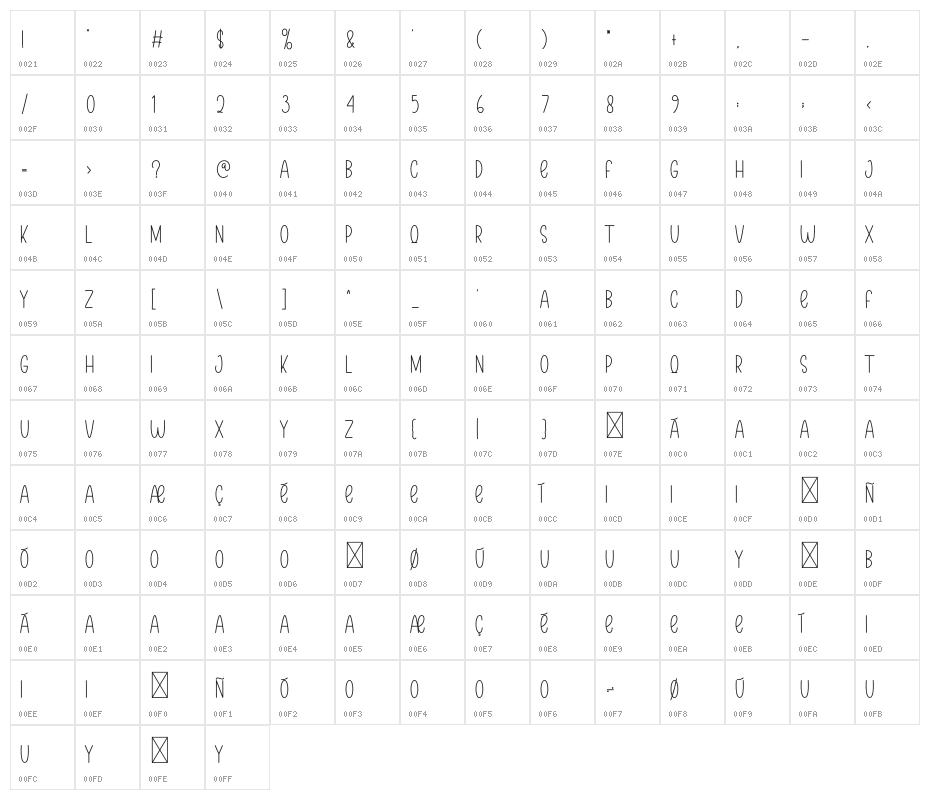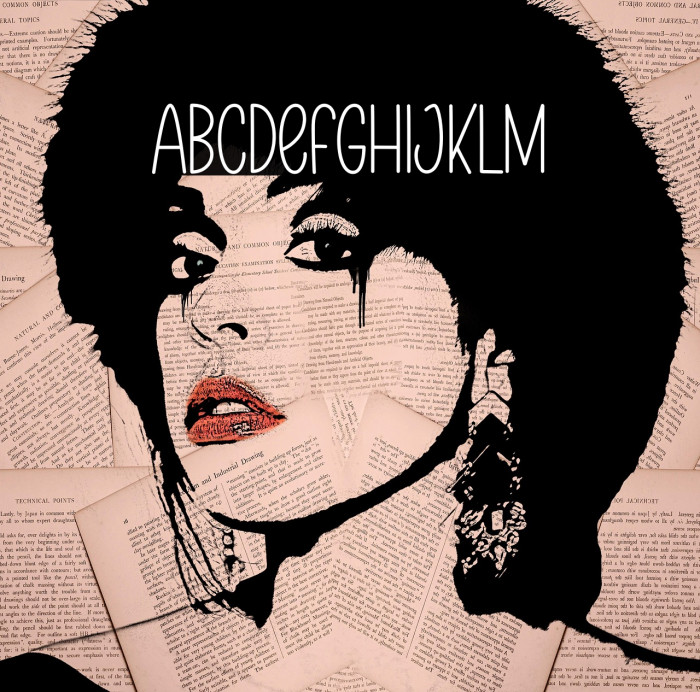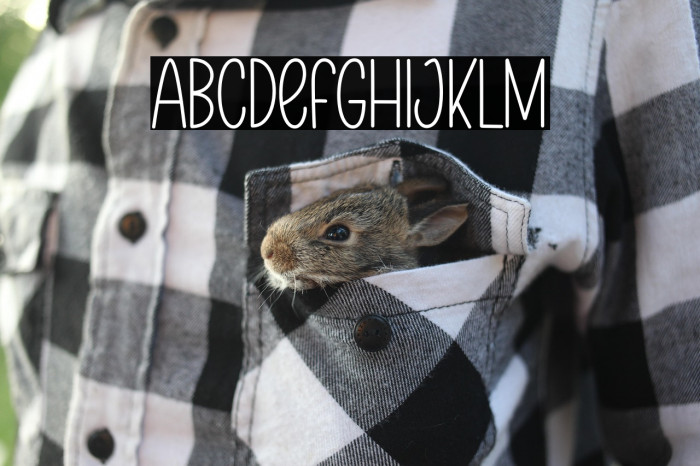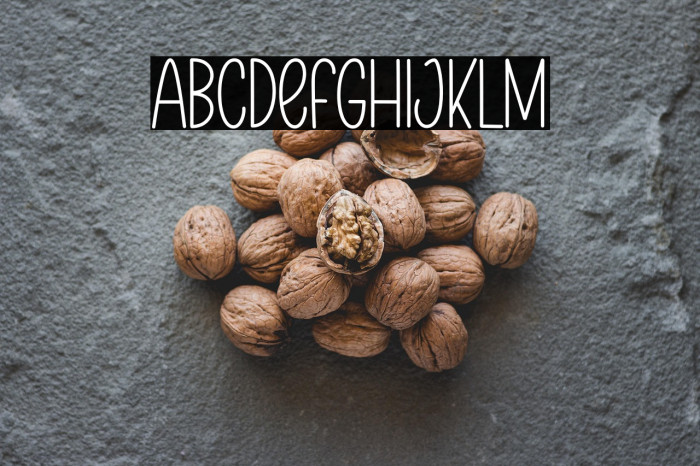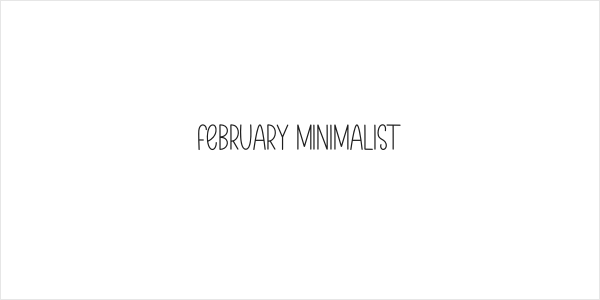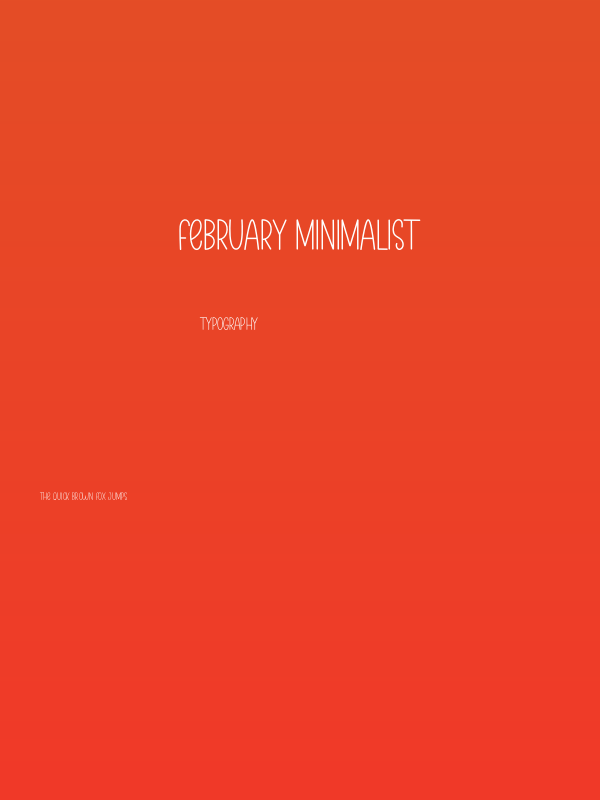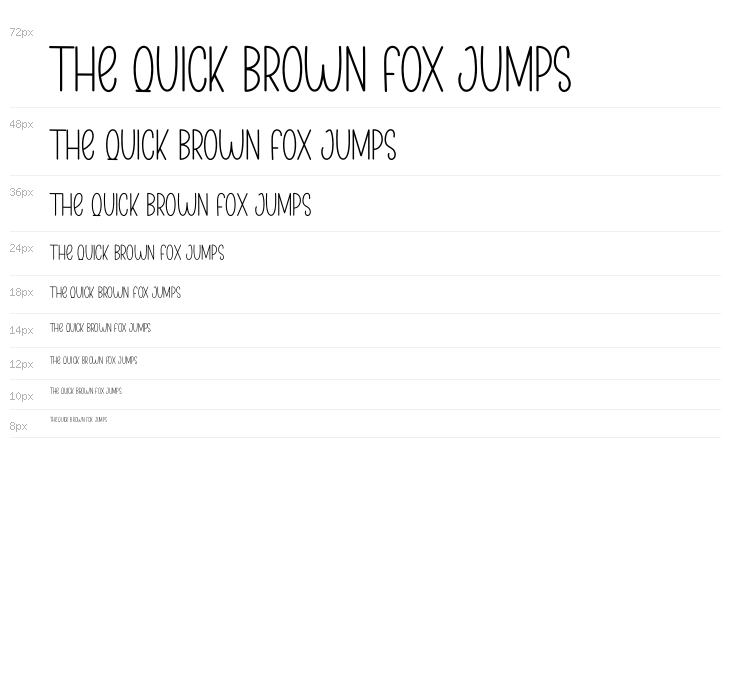
February Minimalist Font
February Minimalist Description
A tall, narrow sans-serif font with rounded terminals and consistent stroke width, giving it a clean and minimalist appearance. The characters are evenly spaced and have a playful, handwritten feel while maintaining legibility.
| Overall Style | Modern, Minimalist, Playful |
| Use Case | Headlines, Logos, Posters, Invitations |
| Proposed Projects | Modern branding, minimalist posters, social media graphics, children's books, invitations. |